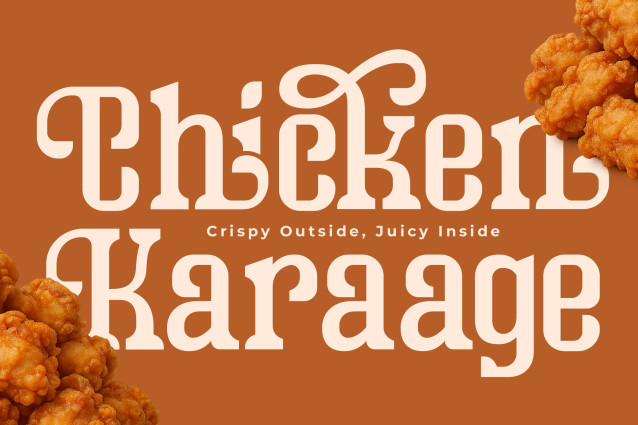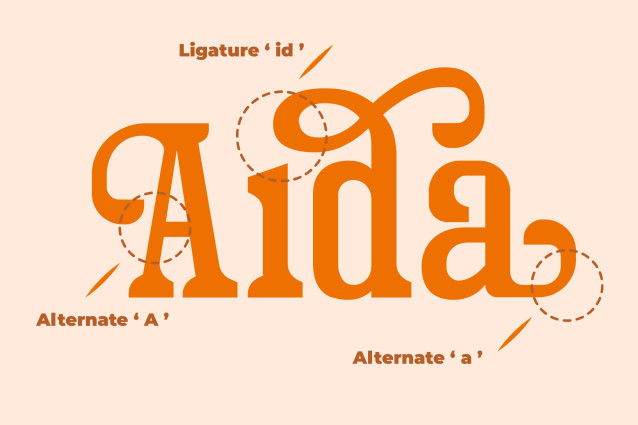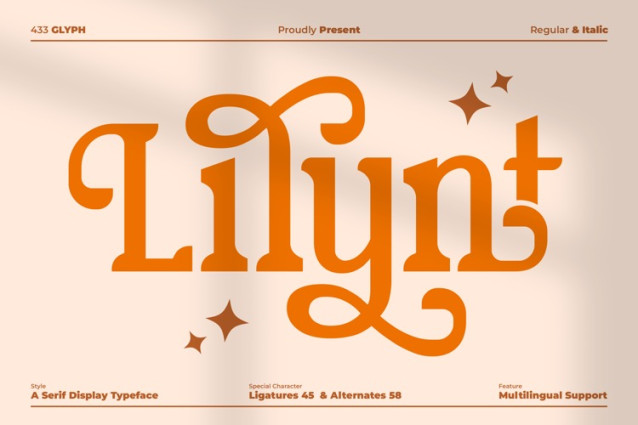
Lilynt Font
Lilynt Font is a stylish serif typeface designed by Risma Type. It features classic serif characteristics with a refined, elegant look suitable for projects that need a touch of sophistication. This font includes a full set of 436 characters and 422 glyphs in its regular style, making it a versatile choice for display text, headers, or creative typographic work.